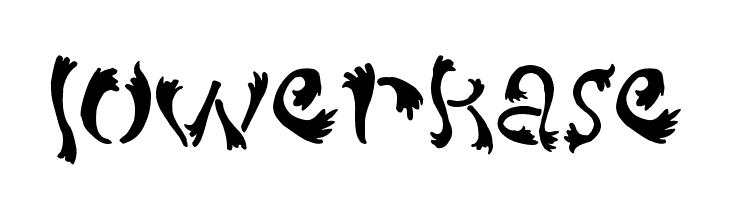
A decorative font with organic, flowing shapes and intricate details.
A scratchy, hand-drawn font with an edgy and artistic style.
A rough, hand-drawn font with an artistic, graffiti-like style.
A bold, geometric font with sharp angles and high contrast, perfect for impactful designs.
A bold, angular font with a modern and geometric style.
A bold, blocky font with a retro, geometric style.
A bold, italic font with a dynamic and modern style.
A playful, cartoonish font with quirky, decorative characters.
A bold, futuristic font with sharp angles and geometric shapes.
A bold, geometric font with sharp angles and a futuristic look.